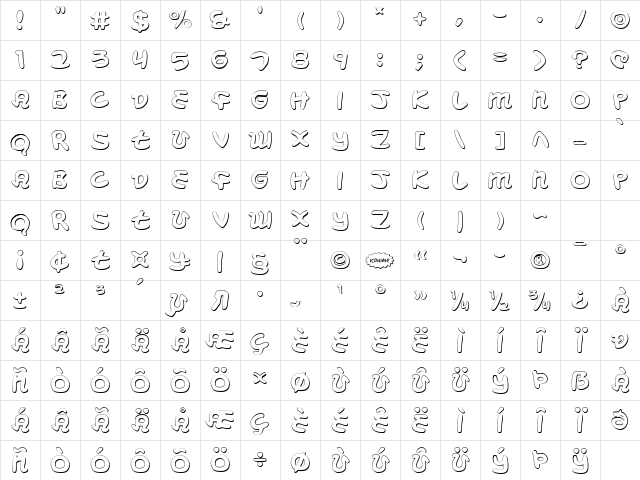
Complete Magic Beans 3D glyph index. Displaying only characters natively supported by Magic Beans 3D font.
Magic Beans is a composed and adaptable typeface that performs quietly and consistently across a wide range of design contexts.